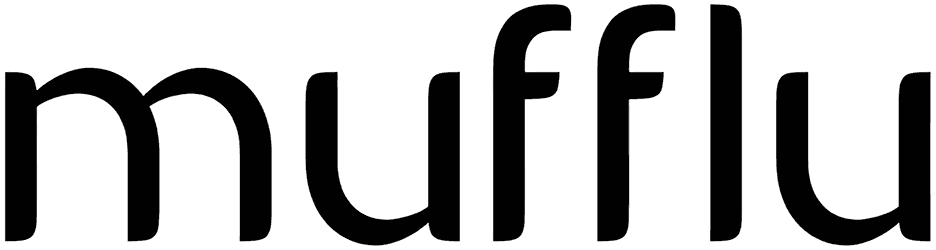
Mufflu Font
For evoking a sense of playful, minimalist, and also modernity to capture the interest of your audience and elevate the efficacy of your content to a new high level, nothing performs better than a sans serif font.